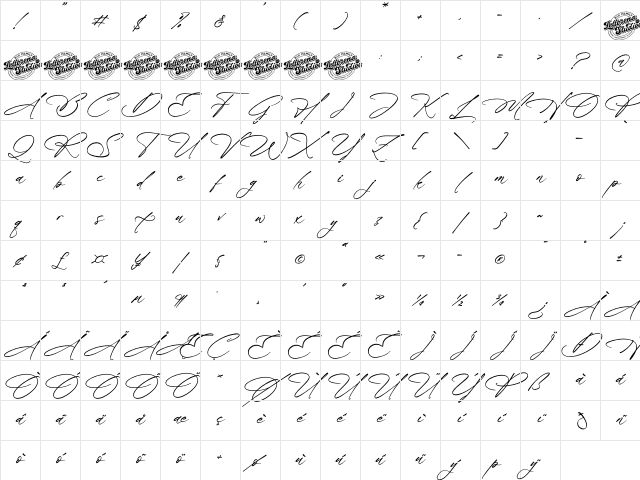
Blissfuly Magnotia DEMO VERSION Italic Free Font
Blissfuly Magnotia DEMO VERSION Italic
Foundry: Letterena Studios
Designer: Heru Utama Putra
Design Context for Blissfuly Magnotia DEMO VERSION
Blissfuly Magnotia DEMO VERSION is a composed and adaptable typeface that performs quietly and consistently across a wide range of design contexts. The slanted form adds forward momentum and visual energy.